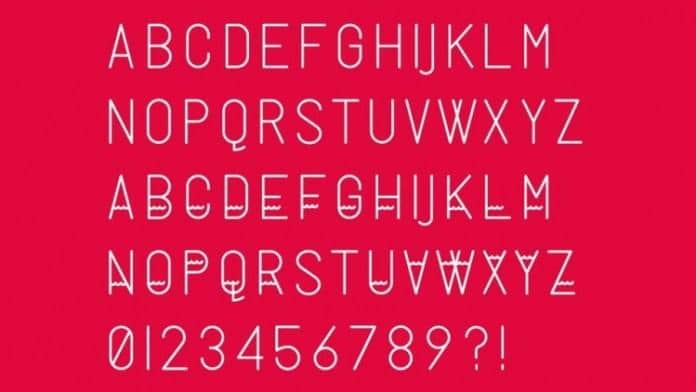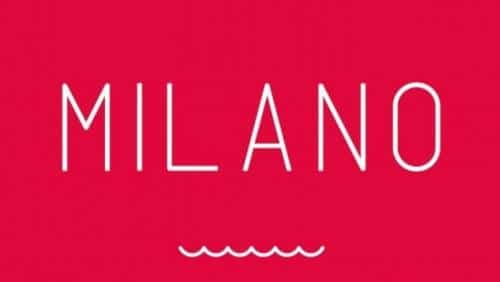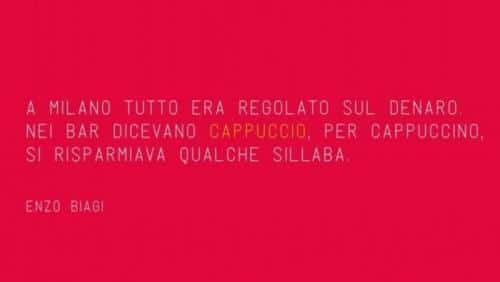
Milano Font is based on, as the name says, the city of Milano. Milano is a terrificant noisy and chaotic city, with a little paradise area called Navigli. Navigli are little rivers in the center of Milano, where you can chill yourself and drinking a beer seeing the beauty of the water.
Milano font comes in Regular and Italic styles, contains all caps letter ant their alternates, numbers and punctuation.